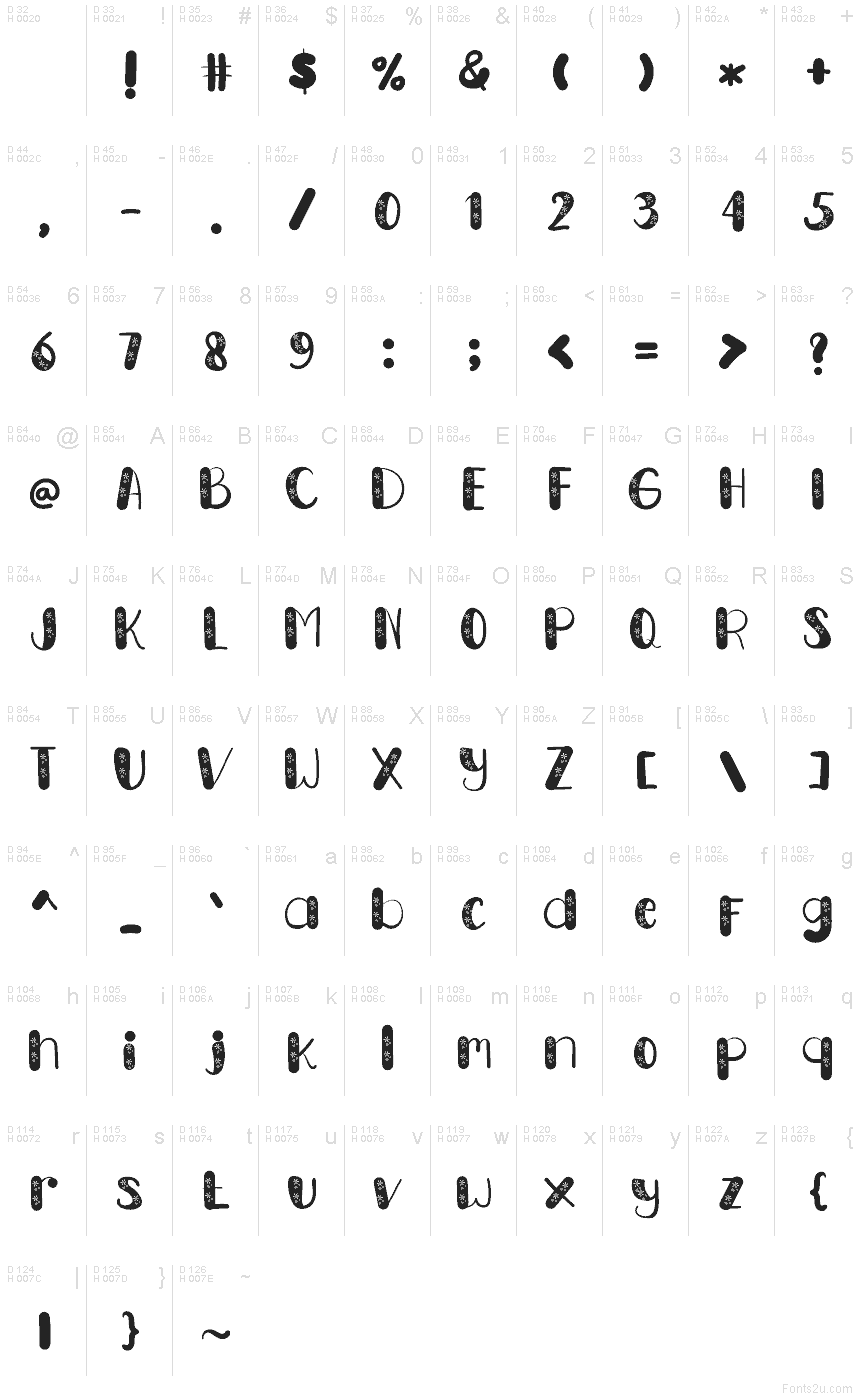
Flower Batique
Flower Batique font by Mr.Soon Design is a free decorative display typeface that turns every word into a tiny floral pattern. Chunky, rounded letters are filled with crisp white batik-style blooms, giving the text a hand-cut, crafty feel that’s both playful and bold. The dense black shapes and repeating flowers make headlines pop instantly, like a paper garland strung across the page.
Using Flower Batique, you can bring a springtime mood to kids’ party invitations, greeting cards, craft fair signage, gardening posters, boutique packaging, or cheerful social media graphics. This free font works best at larger sizes where the intricate flower details can really breathe; pair it with a simple sans serif for body copy to keep everything readable and balanced.